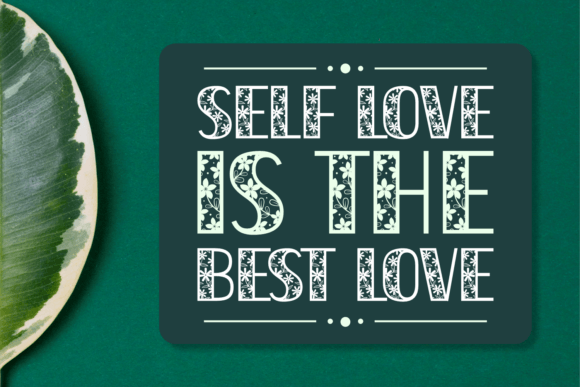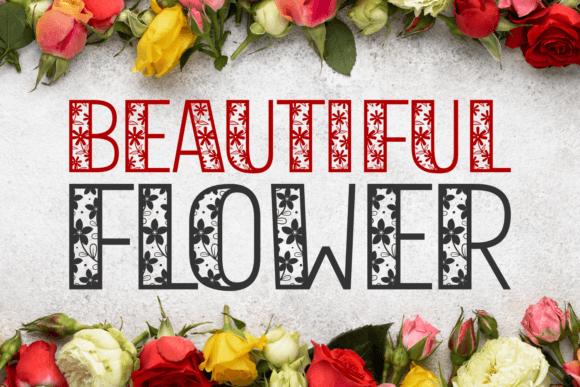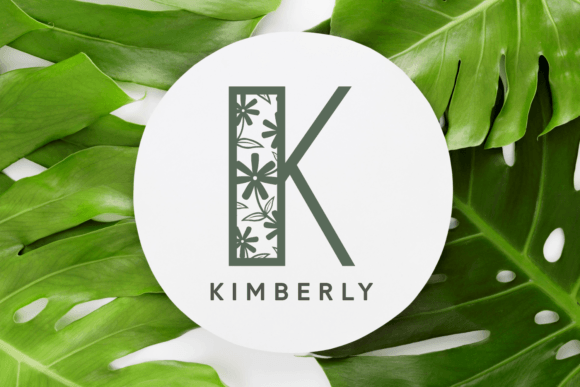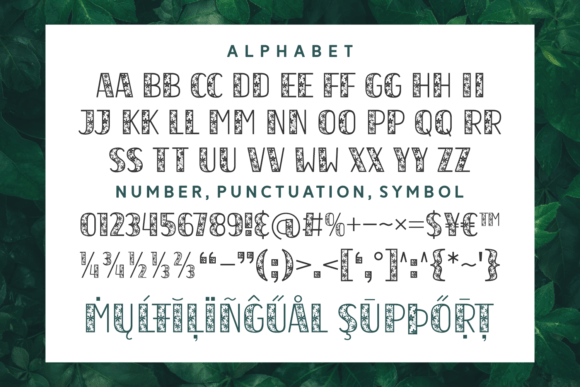
Introducing Caroline Green Font: A Sweet and Beautiful Flower-Inspired Decorative Font
Are you a designer or crafter looking for a unique and elegant font to elevate your next design project? Look no further than Caroline Green Font, a sweet and beautiful flower-inspired decorative font that’s sure to captivate your audience. With its mesmerizing flower patterned letters, Caroline Green Font is the perfect candidate for adding an elegant touch to your designs.
What Makes Caroline Green Font So Special?
Caroline Green Font is a one-of-a-kind decorative font that’s inspired by the beauty of flowers. Each letter is carefully crafted to resemble a delicate flower, making it a stunning addition to any design project. The font’s intricate details and elegant curves make it perfect for a variety of applications, from wedding invitations and thank you cards to quotes, greeting cards, logos, and business cards.
Wedding planners, event designers, and stationery enthusiasts will love Caroline Green Font for its romantic and whimsical feel. The font’s flower-inspired design makes it perfect for creating beautiful wedding invitations, save-the-date cards, and thank you notes. You can also use it to create stunning event branding, such as logos, signage, and programs.
Elevate Your Designs with Elegance and Sophistication
Caroline Green Font is designed to add an elegant touch to your designs. Its beautiful flower patterned letters will make your projects stand out and leave a lasting impression on your audience. Whether you’re designing for a client or working on a personal project, Caroline Green Font is sure to impress. Use it to create:
- Quotes and typographic prints
Why Choose Caroline Green Font?
There are many decorative fonts available, but Caroline Green Font stands out for its unique and beautiful design. Here are just a few reasons why you should choose Caroline Green Font for your next project:
- Unique and eye-catching design: Caroline Green Font is a one-of-a-kind font that’s sure to grab attention.
- Elegant and sophisticated: The font’s flower-inspired design adds an elegant touch to any project.
- Versatile: Caroline Green Font can be used for a variety of applications, from wedding designs to branding and advertising.
Tips for Using Caroline Green Font
To get the most out of Caroline Green Font, here are a few tips to keep in mind:
- Use it sparingly: Caroline Green Font is a decorative font, so use it sparingly to add emphasis and elegance to your designs.
- Pair it with a simple font: Pair Caroline Green Font with a simple font to create contrast and make your design more readable.
- Experiment with colors: The font’s beautiful flower design looks stunning in a variety of colors, so don’t be afraid to experiment and find the perfect hue for your project.
Caroline Green Font is a beautiful and elegant decorative font that’s perfect for designers and crafters looking to add a touch of sophistication to their projects. With its mesmerizing flower patterned letters, this font is sure to captivate your audience and leave a lasting impression. Whether you’re designing for a wedding, event, or branding project, Caroline Green Font is a great choice. So why wait? Download Caroline Green Font today and start creating stunning designs that will leave a lasting impression!